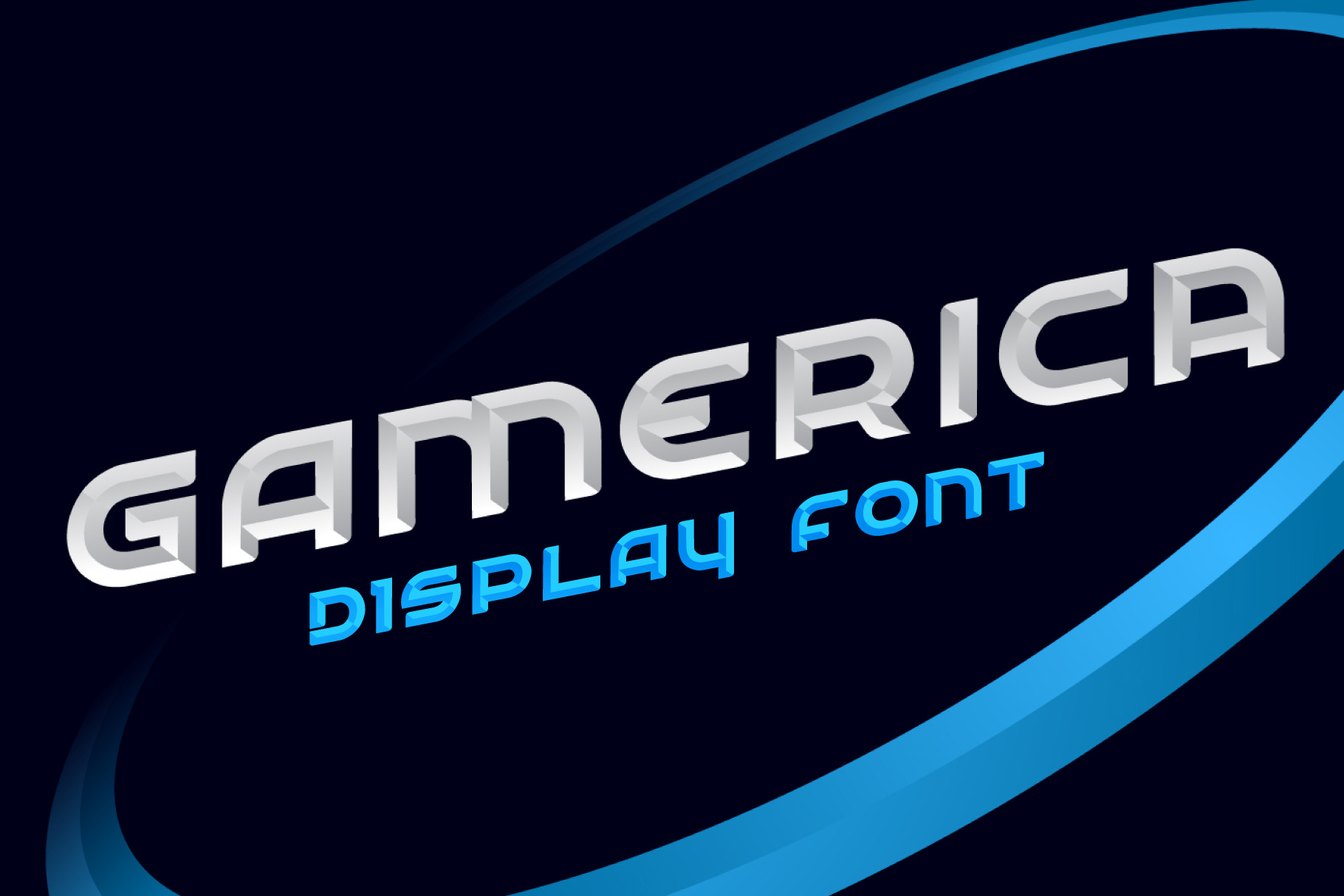
GAMERICA DISPLAY FONT
ALPHABET AGENCY PROUDLY PRESENTS GAMERICA TYPEFACE. GAMERICA IS A MODERN ITALIC TYPEFACE DESIGNED TO GIVE A THREE DIMENSIONAL EFFECT. THE FULL VERSION HAS TWO PARTS GAMERICA AND GAMERICA OVERLAY THAT CAN BE USED TOGETHER OR SEPARATELY.